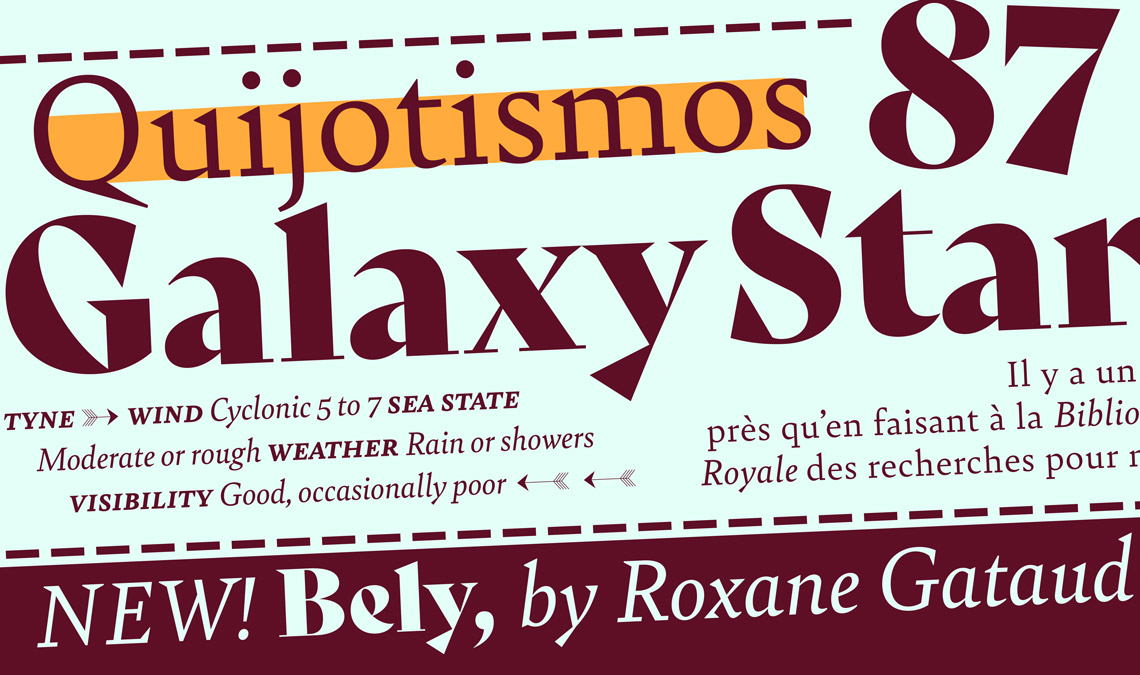
Typeface Publishing Incentive Programme Result
We are delighted to announce the result of this years TypeTogether’s Publishing Incentive Programme. The young and very talented Roxane Gataud convinced our selection team with her project, Bely, which was conceived during her recent postgraduate course at the Ésad, Amiens, France. So far, Bely, which she optimised for editorial use, is comprised of text and display variants and includes support for Cyrillic. Roxane says she drew inspiration from Dwiggins’s design principles and the classical proportions of Garamond to create a highly legible typeface with a pleasant colour and texture. This makes it a perfect fit for TypeTogether’s growing library.